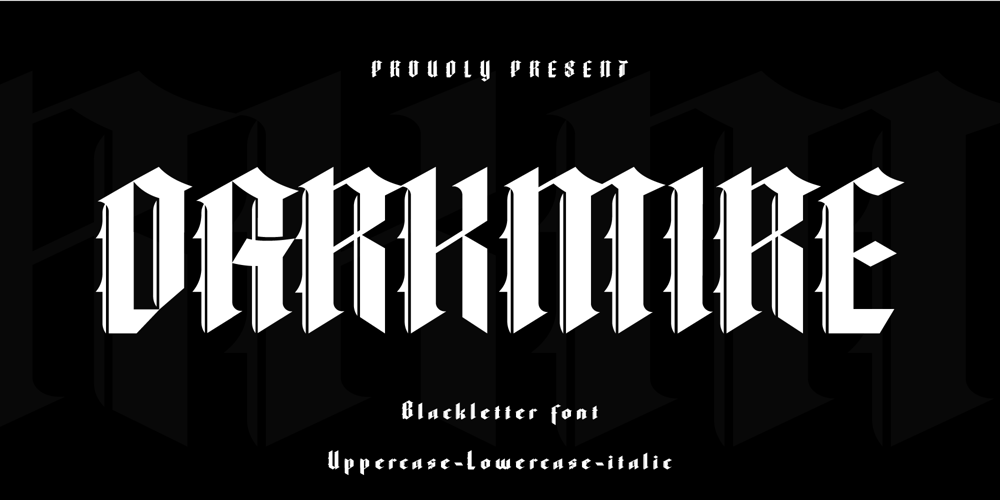
Darkmire Font Family was designed by ryan creative and published by ryan creative. Darkmire contains 2 styles and family package options. Darkmire Blackletter is a writing style created with the pentool. Attractive hand strokes give this font a strong look. It can be used for various purposes. such as, business design, product design, quotation etc.FEATURES;-Uppercase, Lowercase, Foreign Support, Numbers and Punctuation.-Regular & italic-Works on PC.-Simple installation.-Accessible in Adobe Illustrator, Adobe Photoshop. Adobe InDesign, it even works in Microsoft Word.-Fully accessible without additional design software.Darkmire is coded with Unicode PUA, which allows full access to all additional characters without having to design any special software. Mac users can use the Font book, and Windows users can use the Character map to view and copy any extra characters to paste into your favorite text editor/app.